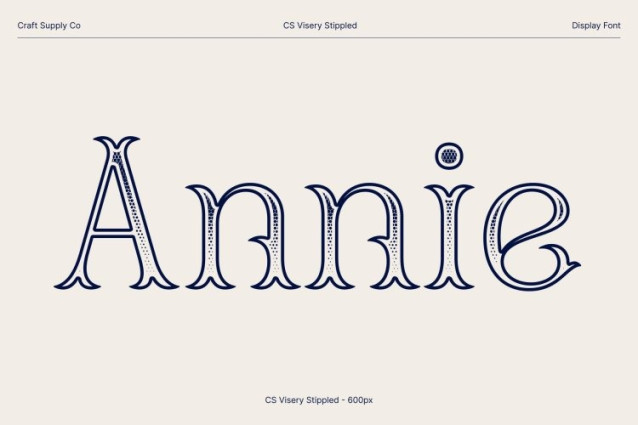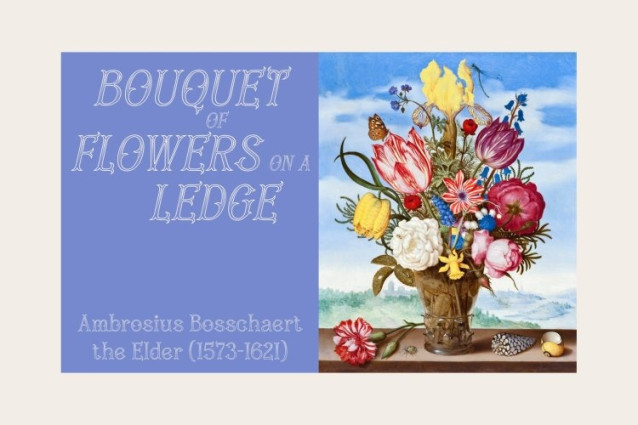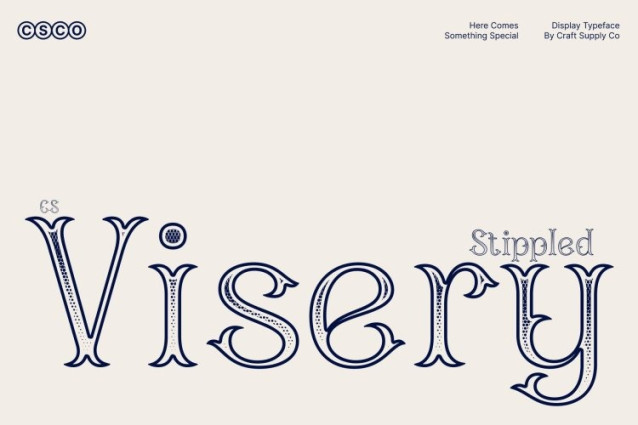
CS Visery Stippled Font
CS Visery Stippled Font is a modern display font defined by its captivating shapes and refined visual balance. The combination of graceful curves and sharp lines creates a powerful and eye-catching appearance that instantly draws attention. Enhanced with a stippled texture, the letterforms gain a subtle dotted surface that adds depth and a handcrafted engraved quality, enriching the font’s elegant character.
Delicate Details with Artistic Texture
The design of this font features intricate details and elegant ornamentation that elevate its visual sophistication. These refined elements are complemented by the stippled effect, which introduces delicate texture and visual richness. The result is typography that feels both luxurious and artistically expressive.
Elegant Style with Strong Presence
Balancing decorative beauty with structural clarity, this font offers a distinctive typographic voice that feels elegant yet impactful. Its thoughtful proportions ensure that the design remains visually striking while maintaining readability, making it suitable for both artistic and professional applications.
Perfect for Creative and Premium Designs
This is ideal for branding, invitations, posters, editorial layouts, and artistic typography. By combining modern display elegance with textured stippled detailing, the font delivers a memorable visual identity that enhances designs with sophistication, creativity, and strong visual impact.